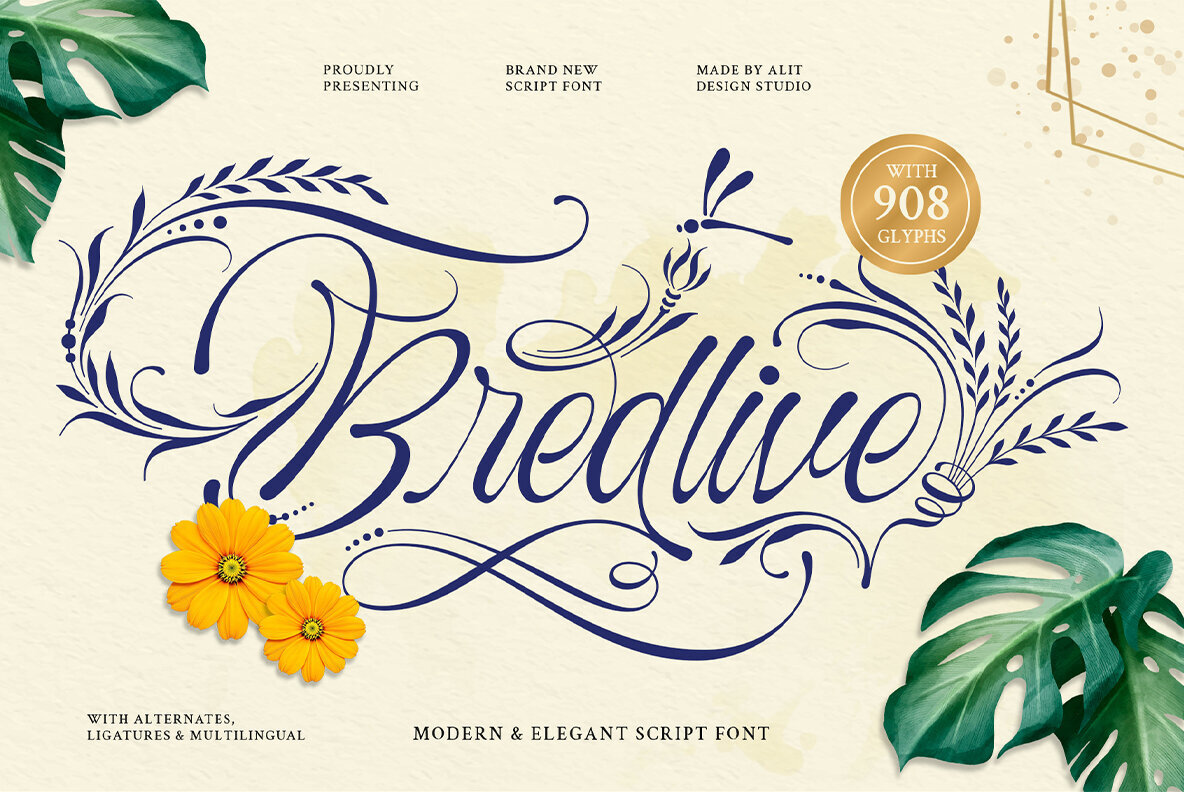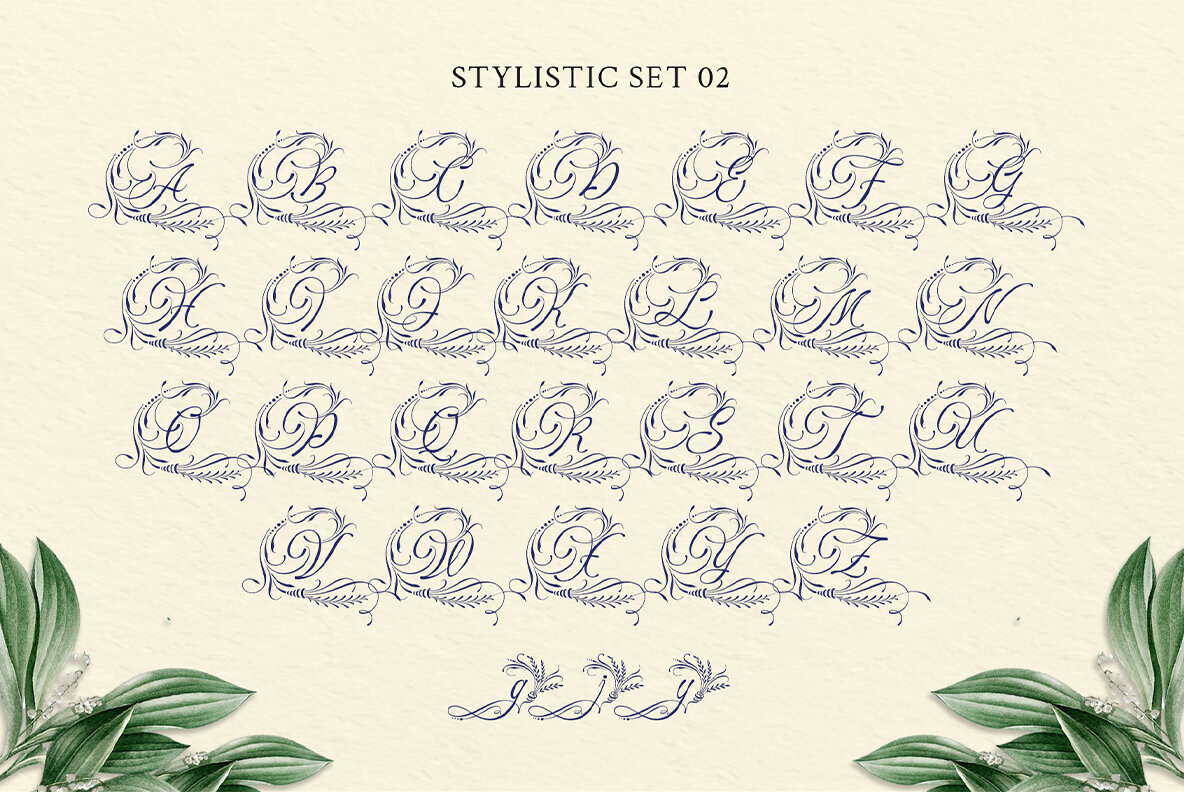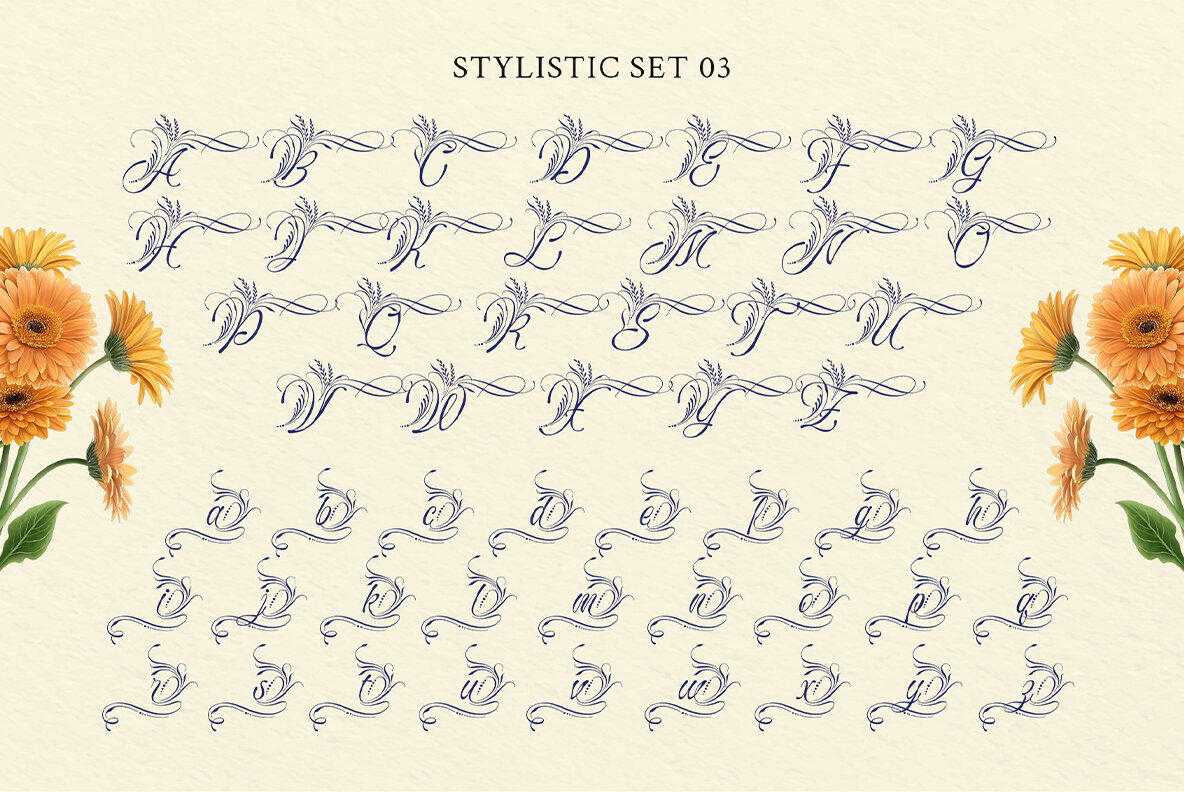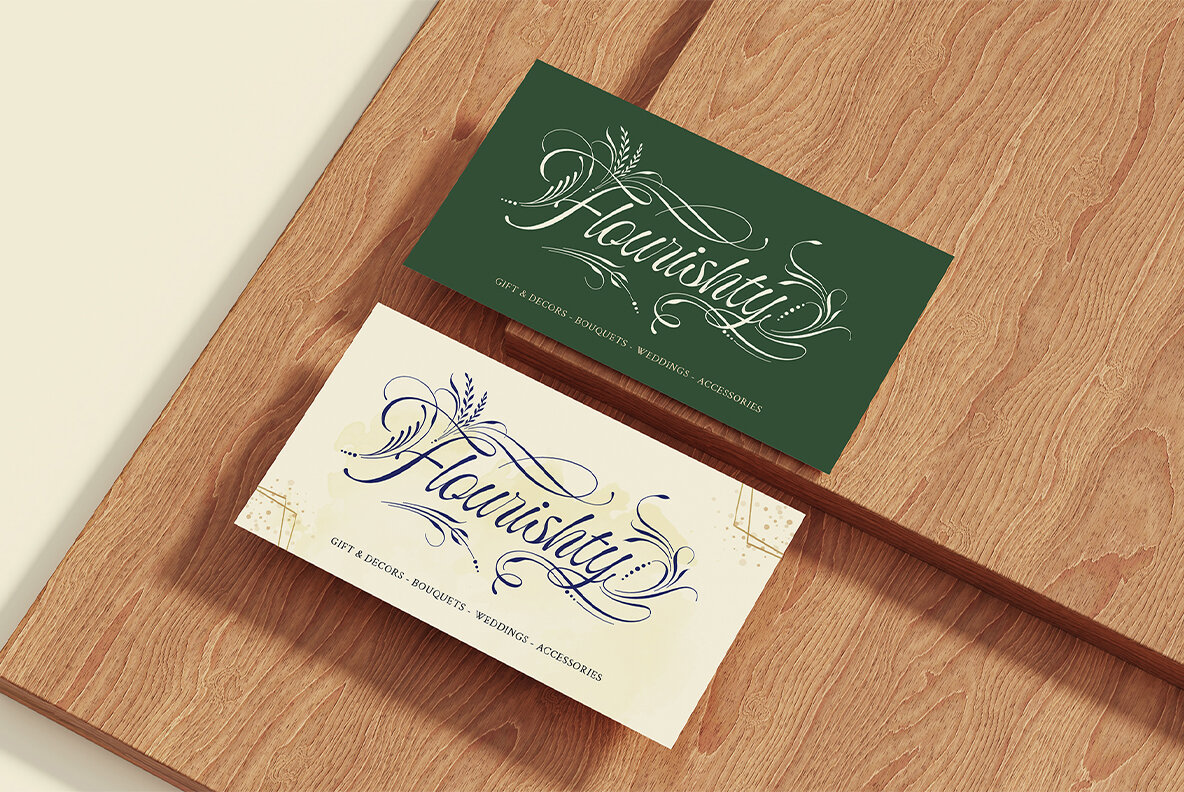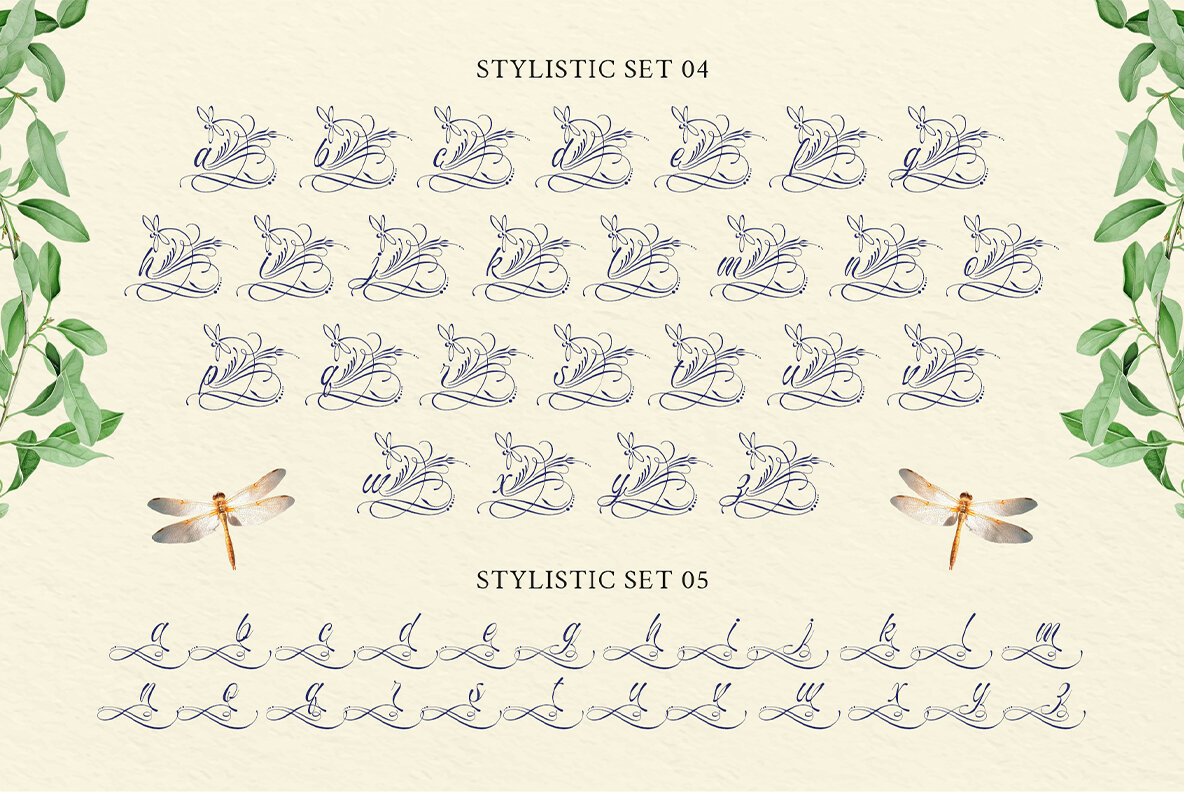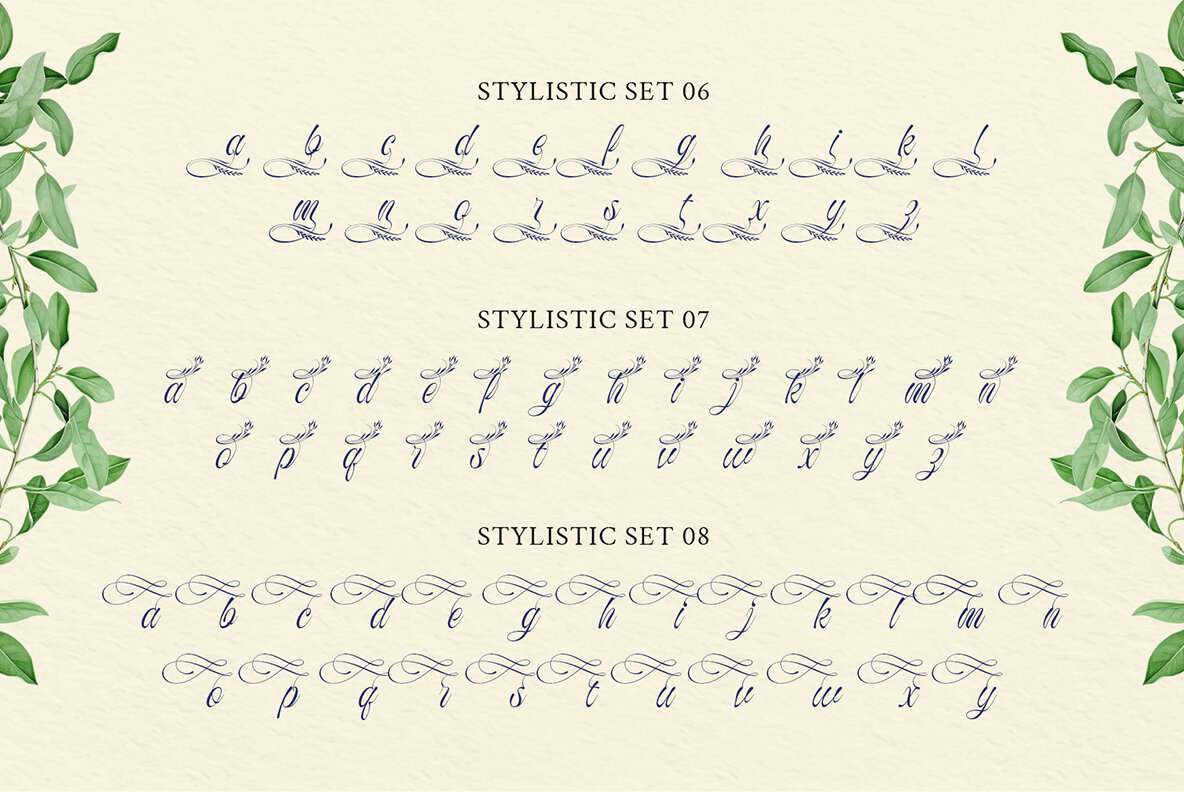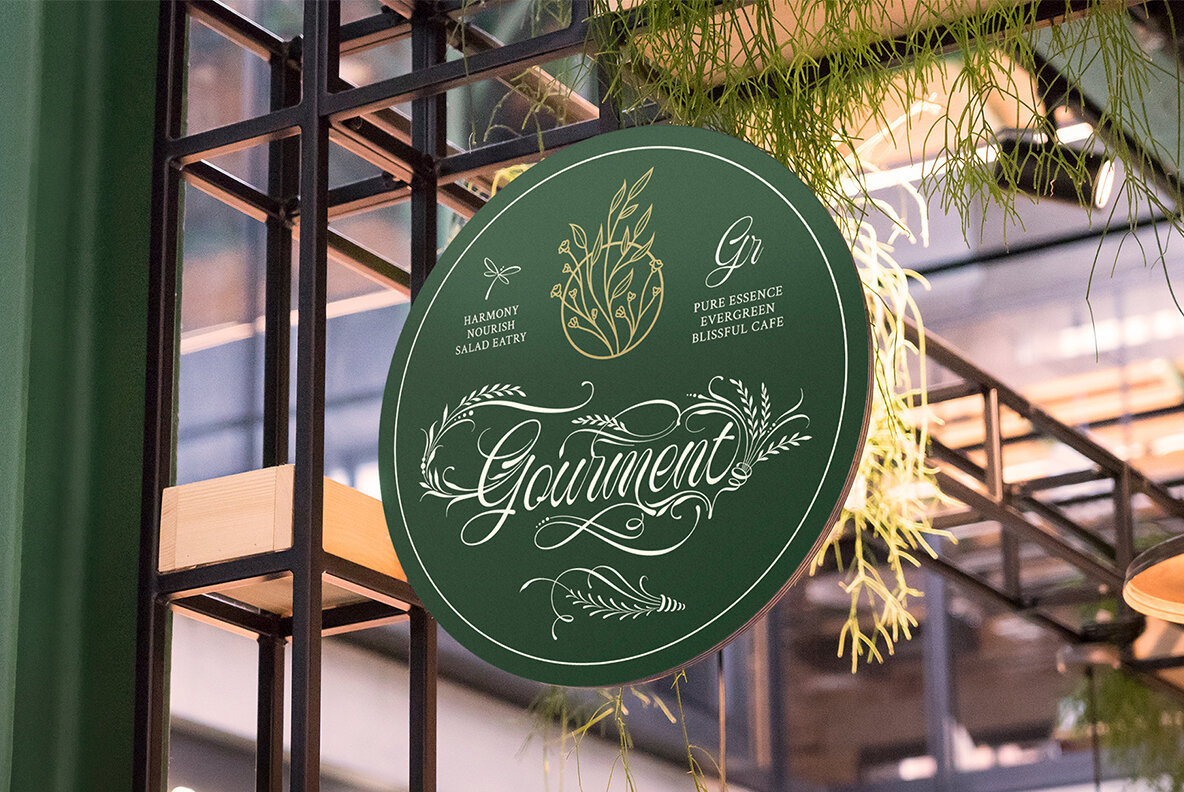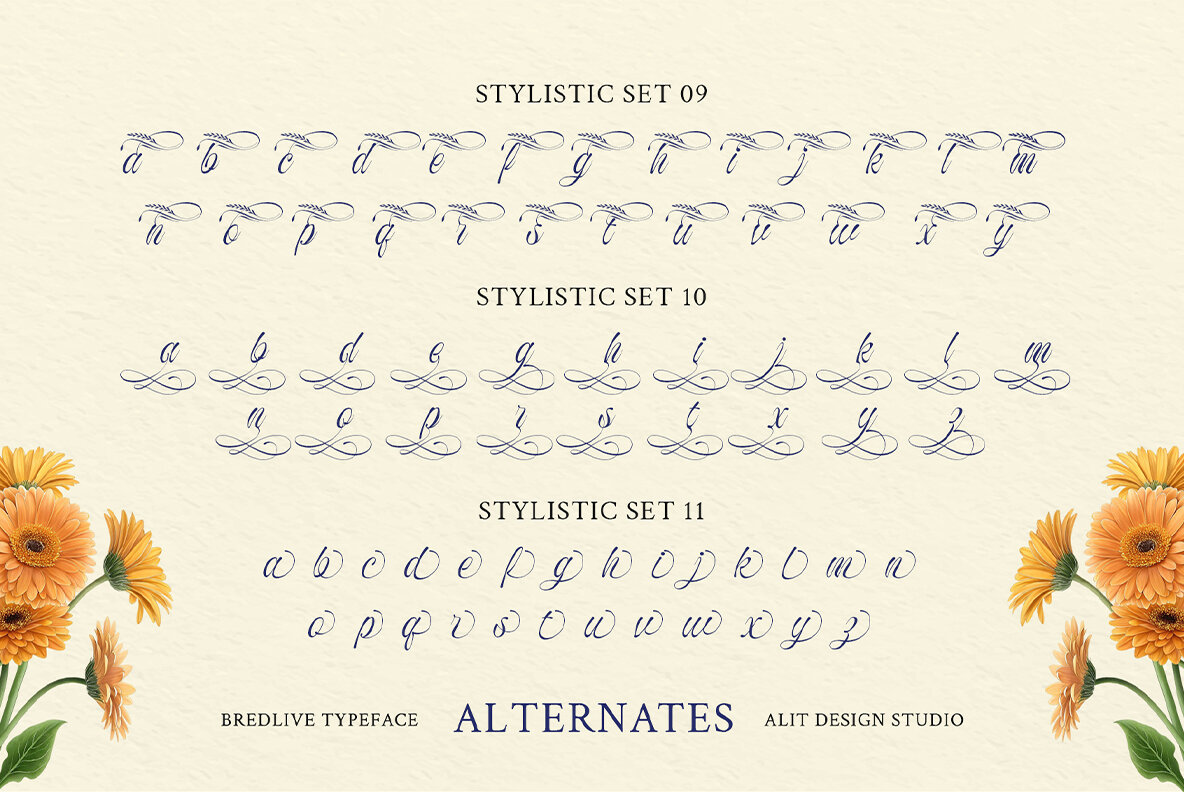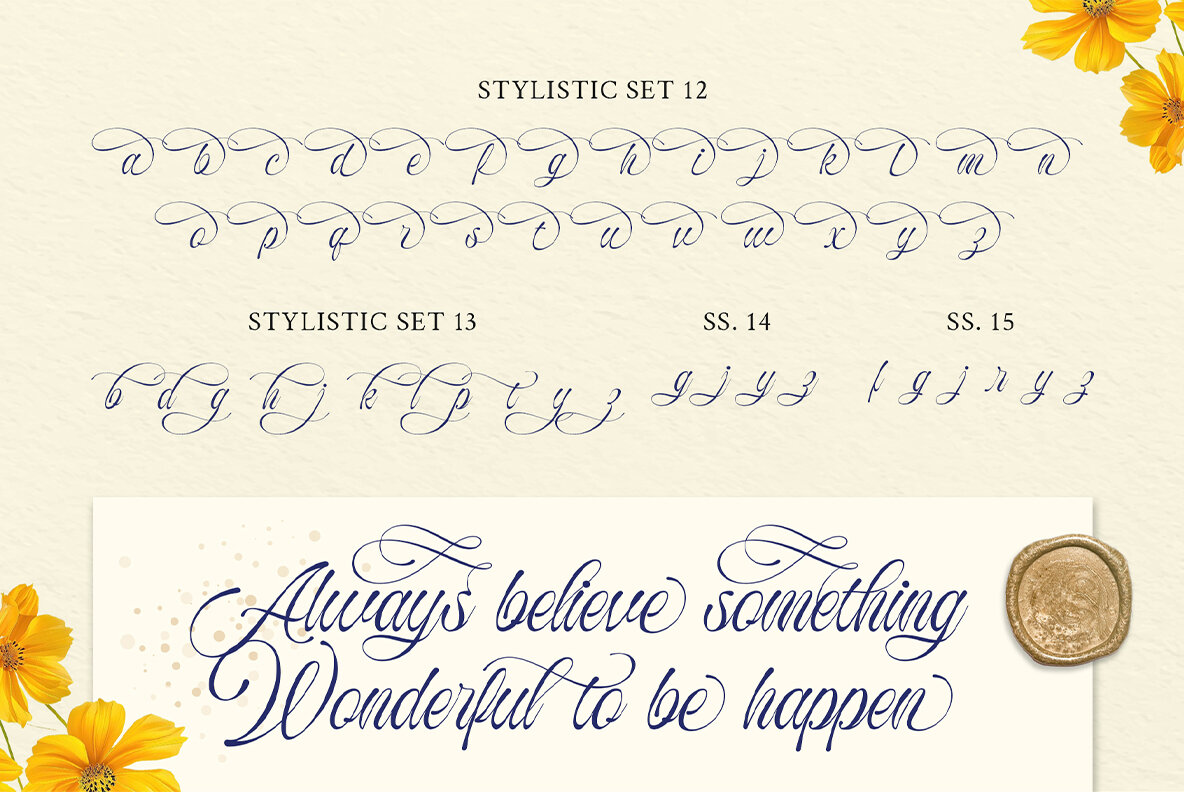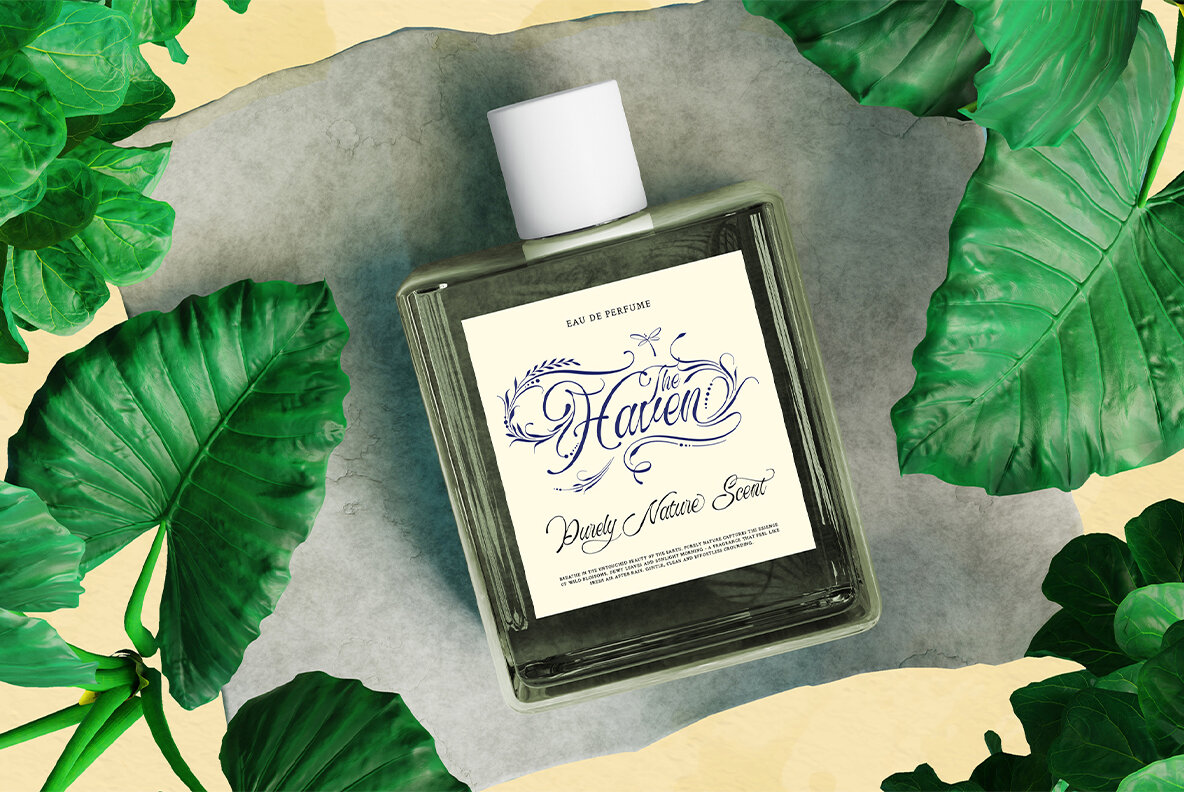
Bredlive Font
Bredlive Regular
Bredlive Typeface stands as a refreshing script font that captures modern elegance through its dynamically brushed, expressive touch. Drawing inspiration from the abstract beauty of nature and the fluidity of fine calligraphy, this typeface is crafted to enhance your designs with organic luxury and artistry. The lifelike strokes within Bredlive dance across the page, adorned with botanical-inspired flourishes that echo delicate branches and leaves. It creates a visual harmony that blends timeless sophistication with artistic expression, while its brushy character imbues your text with a warm, hand-lettered charm. Bredlive Typeface transforms words into painted emotions, infusing each part of your creative work with luxurious natural beauty and enduring elegance.Bredlive Typeface: Elegant Script with Natural Grace